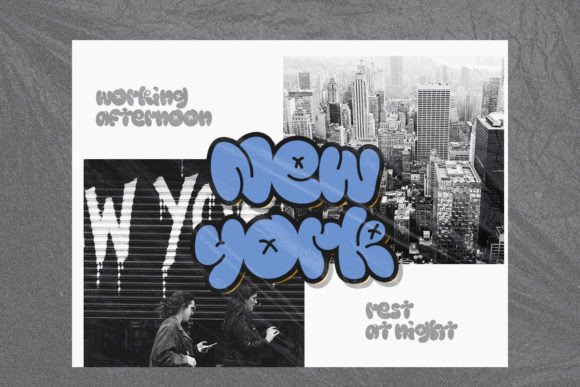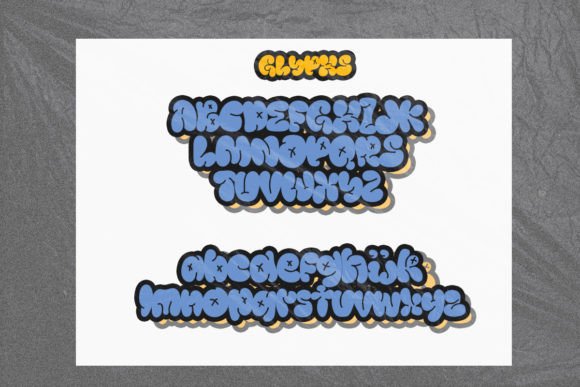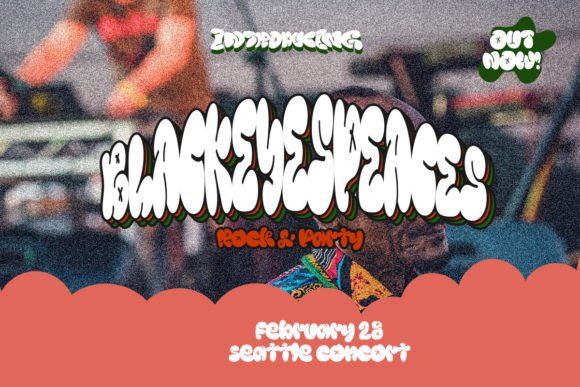
Introduction to Music Vibes Font Font
Fonts play a crucial role in design, and the Music Vibes Font font is a typeface that brings both character and versatility to any project. Whether you’re working on a branding project, a website, or a print design, the Music Vibes Font font offers a unique style that can elevate your work.
| 📌 Font Name | Music Vibes Font |
| 👤 Author | Lettercorner Studio |
Music Vibes is inspired by the 70’s funk & soul vibes.
Is a distinctive and vibrant style of typography that emerged during the 1970s, primarily in the context of soul, funk, and disco One feature that makes this font style distinctive is the use of bold letters with thin lines to form letters.
Key Features of Music Vibes Font Font
Why Choose Music Vibes Font Font?
The Music Vibes Font font is more than just a typeface – it’s a design tool that helps you communicate your message with style and clarity. Its unique character set and versatile design make it suitable for a wide range of applications, from elegant invitations to bold headlines.
With its carefully crafted letterforms and balanced proportions, the Music Vibes Font font ensures readability and visual appeal across all mediums.
What makes Music Vibes Font font special?
The Music Vibes Font font stands out with its unique design, exceptional readability, and versatility across various design applications.